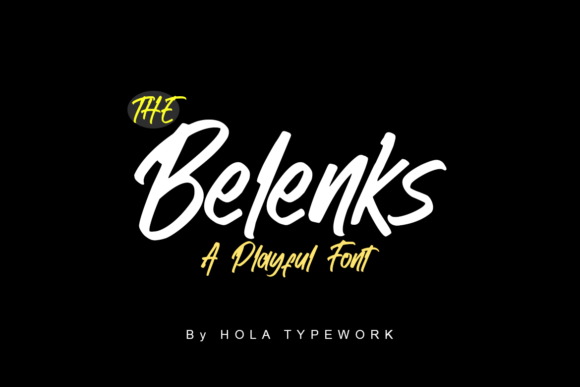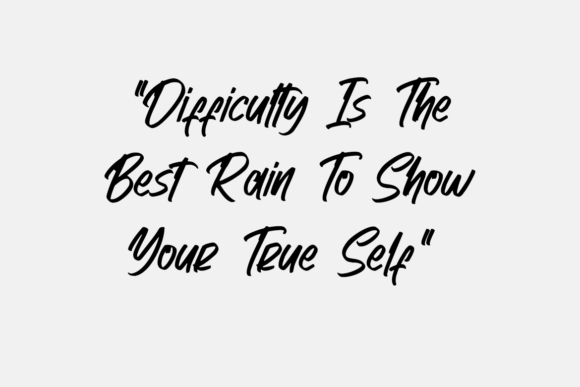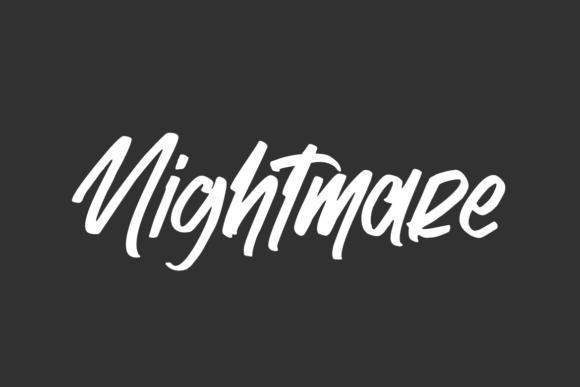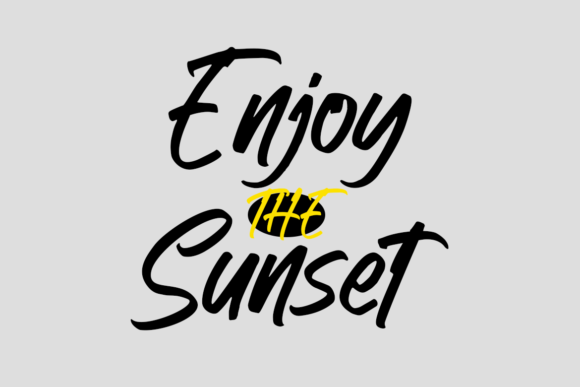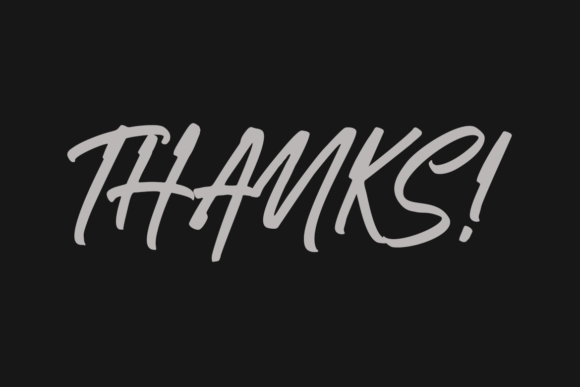
Belenks Font
About Belenks Font
Belenks is a lively and playful brushed handwritten font that adds a touch of spontaneity and creativity to your design projects. Its unique brush strokes and casual appearance make it an excellent choice for a wide range of applications, allowing you to infuse your designs with a sense of fun and vibrancy.
T-shirt designs come to life with the dynamic and energetic vibe of Belenks. The font’s brushed texture gives your t-shirt graphics a handcrafted and artsy look, making them stand out and catch the eye. Whether used for witty quotes, playful illustrations, or eye-catching slogans, Belenks adds a playful touch that resonates with those who wear and admire the designs.
Quotes and motivational messages take on a new dimension with Belenks. The font’s brushed handwritten style adds authenticity and a personal touch to your words of wisdom. Whether used in prints, posters, or social media graphics, Belenks elevates the impact of your quotes and messages, making them more memorable and inspiring.
Mugs and tote bags become unique and eye-catching with the addition of Belenks. The font’s playful brush strokes create a sense of movement and energy, transforming everyday items into artistic and attention-grabbing pieces. Whether you’re designing personalized mugs, custom tote bags, or other merchandise, Belenks adds a fun and creative flair that resonates with your target audience.
Greeting cards and banners also benefit from Belenks’ playful charm. The font’s brushed texture adds warmth and personality to your messages, creating a heartfelt and authentic connection with the recipient. Whether used in birthday cards, holiday greetings, or celebratory banners, Belenks infuses your designs with a sense of joy and creativity.
Social media posts become more engaging and shareable with Belenks. The font’s playful appearance adds a touch of informality and relatability to your captions and visuals, making your content stand out in crowded feeds. Whether used in Instagram posts, Facebook updates, or Pinterest graphics, Belenks helps you create content that resonates with your audience.
Overall, Belenks is a versatile and playful brushed handwritten font that adds a sense of spontaneity and creativity to your design projects. Its dynamic brush strokes and casual style make it a great choice for t-shirt designs, quotes, mugs, tote bags, cards, banners, social media graphics, and any crafty project where you want to infuse a sense of fun and vibrancy.